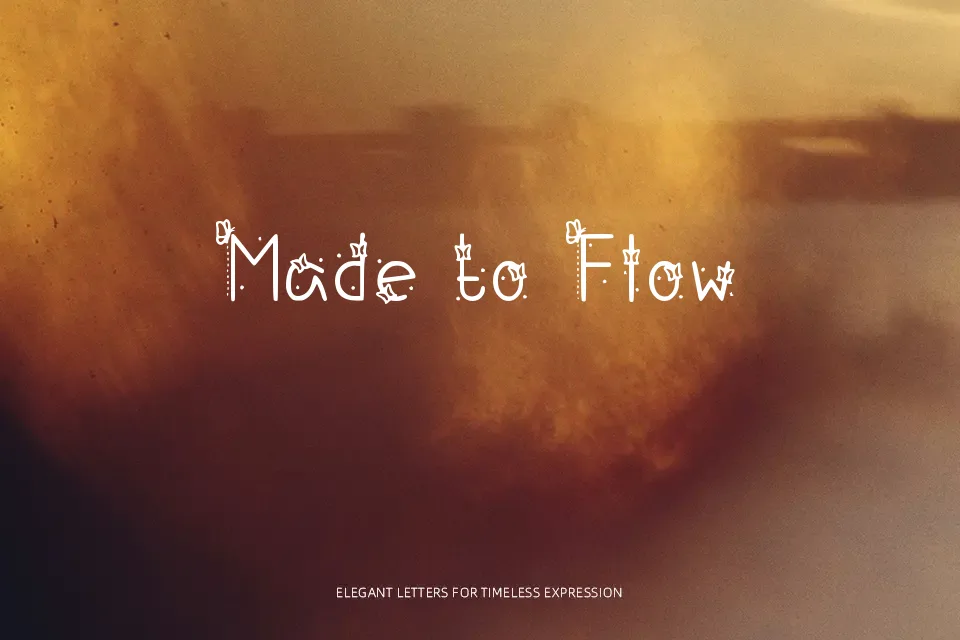
Betterflies Font
Betterflies carries a loose, freehand quality — thin strokes, gentle curves, and open spacing that feels written rather than drawn. The letterforms lean slightly, giving the overall composition a natural, unhurried rhythm. It performs well on wedding stationery, handmade product labels, and Instagram-style quote graphics where the informal personality adds warmth. At small sizes or in dense paragraphs, however, legibility drops noticeably — this isn’t a font built for body copy or fine-print contexts. Designers who need consistent readability across multiple weights or sizes will find Betterflies limiting. Where it earns its place is in single-line headlines or short display phrases that benefit from a personal, pen-written touch.
Best For:- Greeting card and stationery headers
– Handmade or artisan product packaging labels
– Social media quote graphics
– DIY wedding invitation display text
Not Ideal For:- Long-form body text or editorial copy
– Corporate reports or professional documents
– Small-size UI labels or navigation elements
– Projects requiring multilingual or extended character support
Perfect for invitation, packaging, and poster, with a feminine and handwritten style.